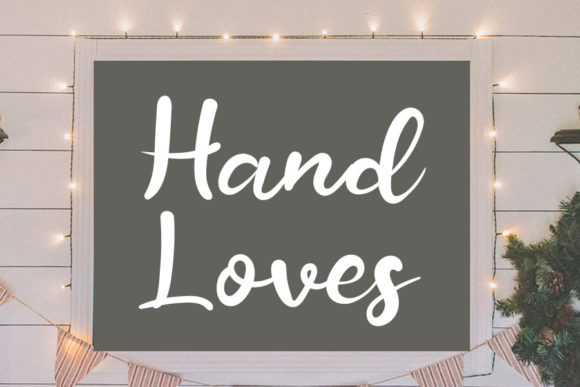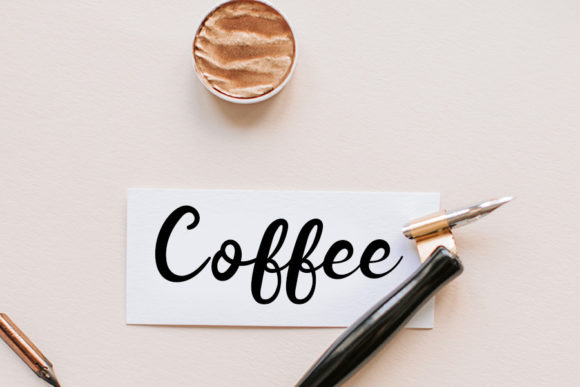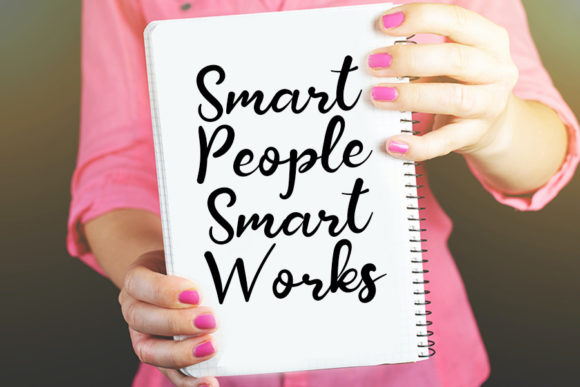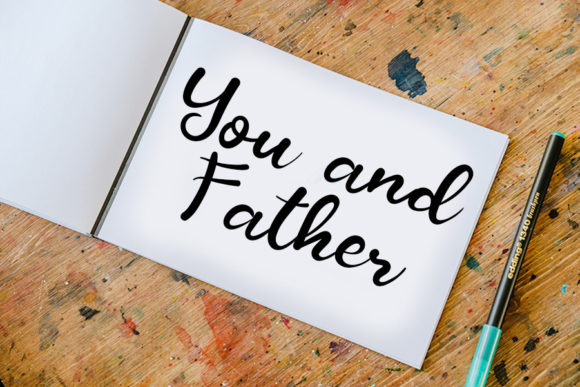
Dandelions Font: Elevate Your Designs with Elegance and Flair
Are you a designer or crafter looking for a font that can add a touch of sophistication and whimsy to your creative projects? Look no further than Dandelions Font, a delicate, elegant, and flowing handwritten font that is sure to make your designs come alive.
The Beauty of Dandelions Font
Dandelions Font is a stunning example of a handwritten font that exudes elegance and refinement. Its beautiful and well-balanced characters make it an ideal choice for a wide range of designs, from wedding invitations and branding materials to craft projects and digital content. The font’s flowing lines and delicate curves give it a sense of movement and fluidity, making it perfect for designs that require a touch of whimsy and personality.
Key Features of Dandelions Font
- Delicate and Elegant: Dandelions Font features delicate and elegant lines that give it a sophisticated and refined look.
- Flowing Handwritten Style: The font’s flowing handwritten style makes it perfect for designs that require a touch of personality and whimsy.
- Well-Balanced Characters: The font’s well-balanced characters ensure that it matches a wide pool of designs, making it a versatile choice for any project.
- Easy to Read: Despite its elegant and flowing style, Dandelions Font is easy to read, making it perfect for body text and headings.
Uses for Dandelions Font
Dandelions Font is a versatile font that can be used for a wide range of designs and projects. Here are some ideas to get you started:
- Wedding Invitations: Add a touch of elegance and sophistication to your wedding invitations with Dandelions Font.
- Branding Materials: Use Dandelions Font to create stunning branding materials, such as logos, business cards, and letterheads.
- Craft Projects: Dandelions Font is perfect for craft projects, such as handmade cards, scrapbooking, and DIY gifts.
- Digital Content: Use Dandelions Font to add a touch of elegance and personality to your digital content, such as blog posts, social media graphics, and email newsletters.
Tips for Using Dandelions Font
Here are some tips for using Dandelions Font in your designs:
- Pair it with Bold Fonts: Pair Dandelions Font with bold fonts to create a striking contrast and add visual interest to your designs.
- Use it for Headings: Use Dandelions Font for headings and titles to add a touch of elegance and sophistication to your designs.
- Keep it Simple: Don’t be afraid to keep it simple and use Dandelions Font on its own to create a clean and elegant design.
Dandelions Font is a stunning handwritten font that is sure to elevate your designs and add a touch of elegance and whimsy. With its delicate and flowing lines, well-balanced characters, and versatility, it’s the perfect choice for designers and crafters looking to create beautiful and sophisticated designs. So why not give it a try and see how it can make your designs come alive?